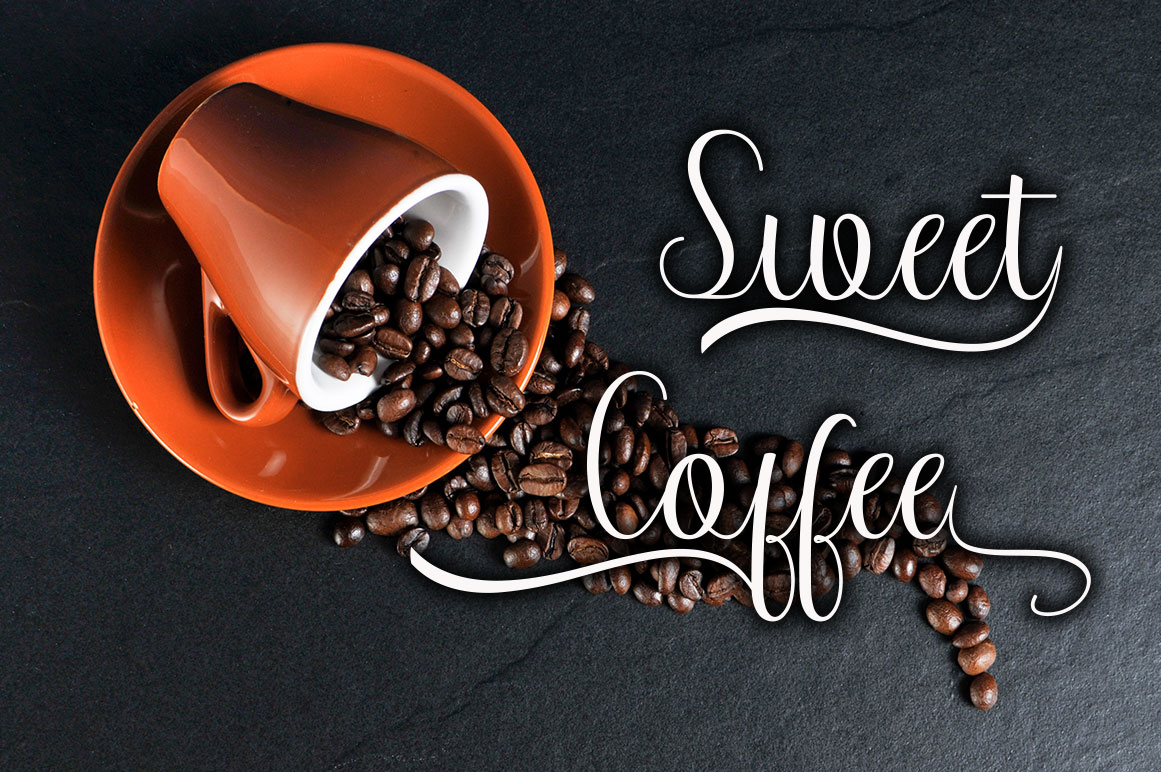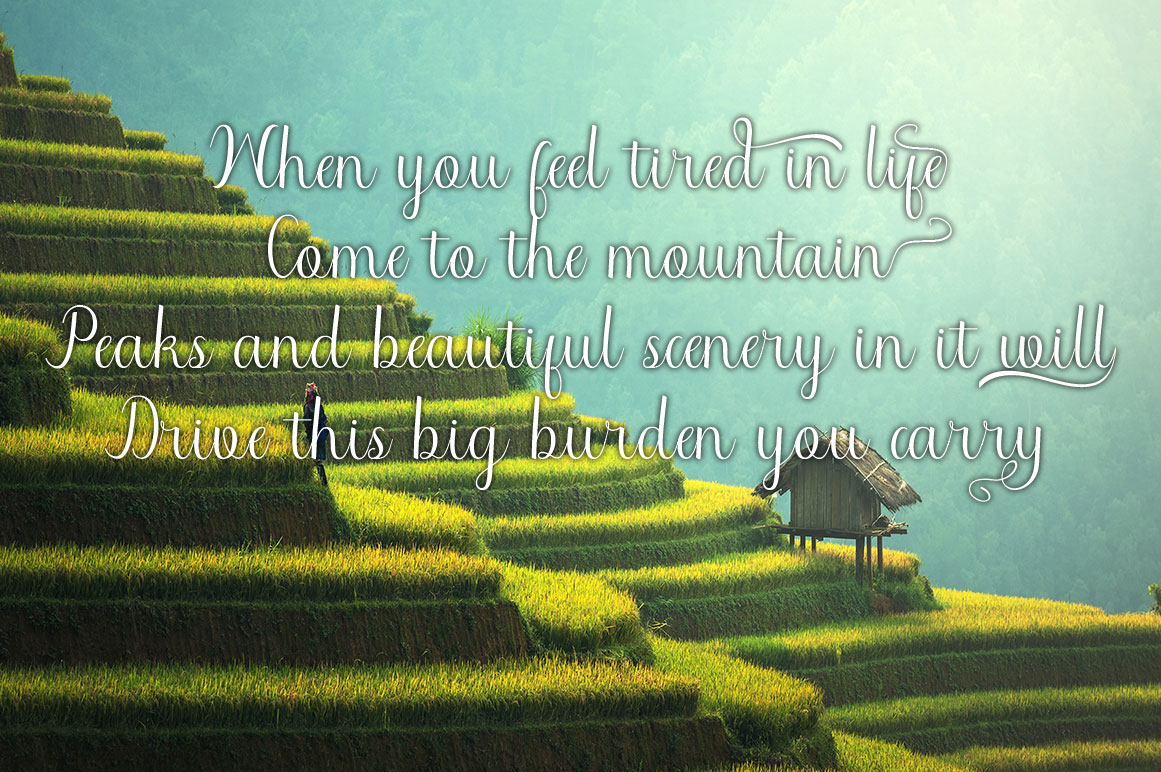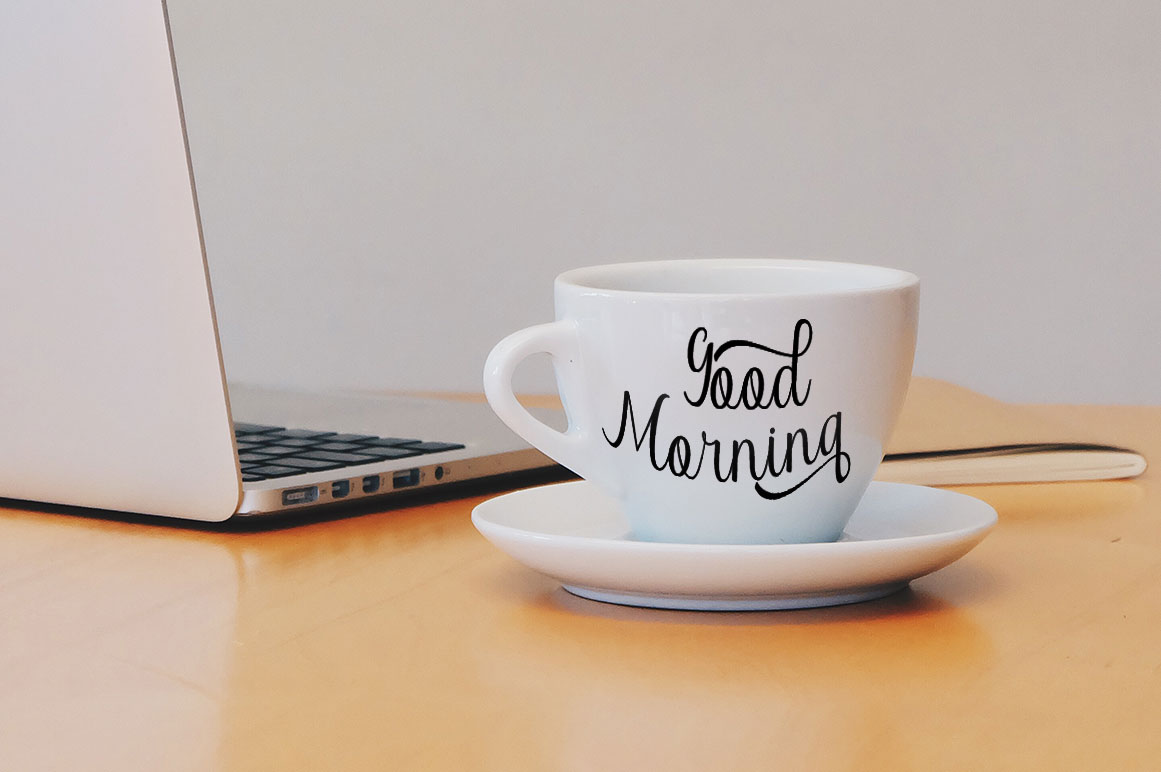
Introduction to Maudy Font
Have you ever found yourself in the middle of a creative project, staring at a blank page or screen, desperate for that perfect font to bring your vision to life? It’s a feeling many designers know all too well. For those seeking a unique and charming touch, the Maudy Font is here to save the day.
This delightful handwritten calligraphy font is a true masterpiece, crafted entirely by hand to ensure its distinctive, high-quality feel. Whether you’re working on a wedding invitation, a branding project, or simply a personal art piece, the Maudy Font is sure to add a touch of whimsy and sophistication to your design.
Key Features of Maudy Font
- Unique, cursive font style with a transparent background
- Perfect for designers and artists looking for a distinctive font
- High-resolution design suitable for large-scale prints and digital displays
- Easy to customize and integrate into various design projects
Honest Review: Maudy Font
I recently came across the Maudy Font and I have to say, I’m quite impressed. As a designer, I’m always on the lookout for high-quality design resources to elevate my creative projects. The Maudy Font is definitely a great addition to my collection.
- What works well:
- ✨ Unique and elegant design that’s perfect for modern projects
- ✨ High-quality font that’s great for both print and digital use
However, I do have a few minor complaints.
- ⚠️ Limited character set, which might be a problem for some designers
- ⚠️ No transparent background option, which can make it tricky to use in certain design scenarios
Overall, I’m really pleased with the Maudy Font. It’s a great design resource that’s perfect for adding a touch of elegance to your creative projects. With a little more development, I think it could be a truly exceptional font.
How to Use Maudy Font
Introduction to Maudy Font
Maudy Font is a high-quality design resource that offers a unique and creative touch to any project. With a transparent background, this font is perfect for adding a stylish and modern feel to your work.
Tips for Getting the Most Out of Maudy Font
Experiment with different font sizes and colors to achieve the desired effect.
Use Maudy Font in combination with other design elements, such as images and shapes, to create a visually appealing design.
Maudy Font is perfect for creative projects, such as graphic design, digital art, and typography. It can also be used in business presentations, marketing materials, and social media graphics.
Arial Rounded is more elegant and refined than Maudy Font, but lacks the whimsical feel of the latter.
Great Vibes is a beautiful and elegant script font that’s perfect for creative projects that require a touch of sophistication. It’s available for free download and features a transparent background, making it a great design resource. When to use: for wedding invitations, menus, and other formal designs.
Compared to Maudy Font, Great Vibes is more elegant and refined, but lacks the playfulness and whimsy of the latter.
Lato is a modern and clean font that’s perfect for high-quality designs. It’s available for free download and features a transparent background, making it a great design resource. When to use: for formal and professional projects that require a clean and sophisticated look.